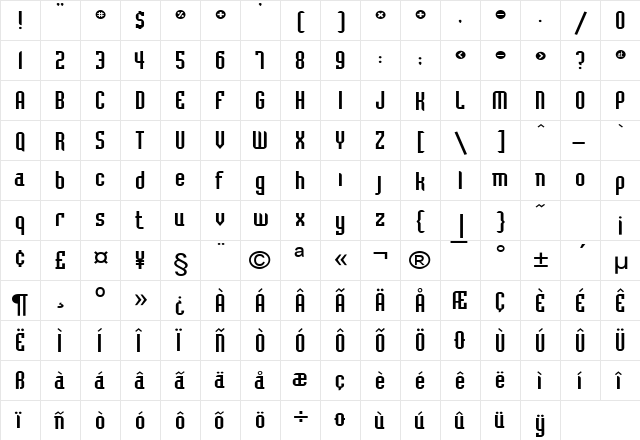
Flintstone Extended Normal
Design Context for Flintstone Extended Typeface
Flintstone Extended is a composed and adaptable typeface that performs quietly and consistently across a wide range of design contexts.